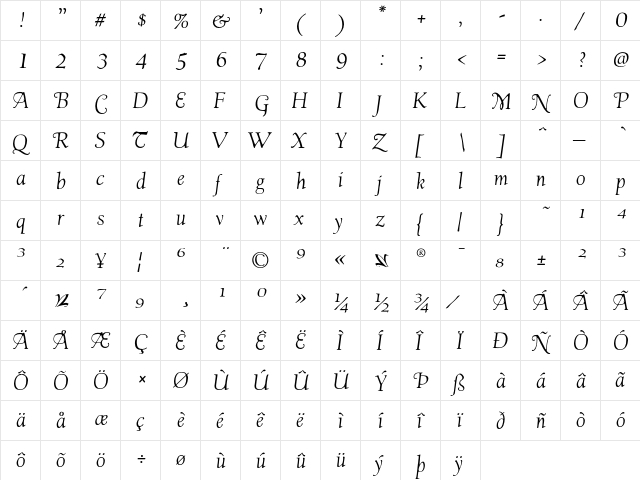
ClaremontOSSC-Italic Regular
Copyright1991 Richard Beatty Designs from Goudy's Scripps College O. S.
Design Context for ClaremontOSSC-Italic Typeface
ClaremontOSSC-Italic offers clean, dependable letterforms without strong stylistic allegiance, making it a practical choice for designers who need flexibility. Its italic angle brings a sense of urgency and motion to the letterforms.
Pro Tip: Use ClaremontOSSC-Italic for emphasis, pull quotes, and subheadings where its slanted energy can add rhythm to the layout.